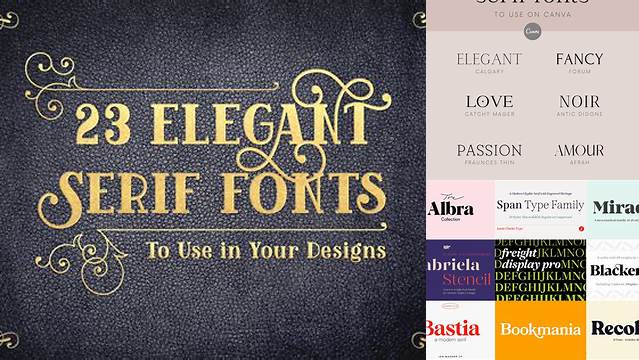
Elegant Serif Fonts: Perfect Logos
Hey guys! Choosing the right font for a logo is super crucial. It's like picking the perfect outfit for your brand – it needs to look good and represent what you're all about. If you're aiming for a classy, timeless vibe, then elegant serif fonts are definitely the way to go. These fonts have those little feet (serifs) that give them a formal and polished look. In this article, we're diving deep into the world of elegant serif fonts and how they can make your logo shine. We'll explore different styles, best practices, and even some examples to get your creative juices flowing. So, let's jump in and find the perfect serif font for your brand!
1. Classic Serif Fonts for Logo Design
When we talk about classic serif fonts, we're talking about the fonts that have stood the test of time. These fonts are like the little black dress of the font world – always in style and perfect for any occasion. For logos, classic serifs can bring a sense of tradition, reliability, and sophistication. Think about brands like Vogue or Times New Roman; these fonts evoke a sense of history and trustworthiness. Choosing a classic serif means you're opting for a font that's legible, versatile, and instantly recognizable. They work particularly well for businesses that want to project an image of authority and expertise. So, if you're looking for a font that screams elegance and stability, diving into the realm of classic serif fonts is a fantastic starting point. They’re not just fonts; they're a statement of enduring quality and style, making them perfect for a logo that needs to make a lasting impression.
2. Modern Serif Fonts for Logo Design
Okay, let's talk about modern serif fonts. These are the cool kids on the serif block, blending the traditional feel of serifs with a contemporary twist. Modern serif fonts often feature high contrast between thick and thin strokes, giving them a sleek and stylish appearance. They're perfect for brands that want to convey sophistication with a bit of an edge. Imagine a high-end fashion brand or a tech company with a classic yet innovative approach – these are the types of businesses that can really rock a modern serif in their logo. These fonts feel fresh and current while still maintaining that timeless elegance that serifs are known for. So, if you're aiming for a logo that's both chic and professional, exploring modern serif fonts is a must. They bring a level of sophistication that’s hard to beat, making your brand look cutting-edge and classy all at once.
3. Luxury Serif Fonts for Branding
If you're aiming for a brand that exudes opulence and sophistication, then luxury serif fonts are your secret weapon. These fonts are designed to make a statement of elegance and exclusivity. Think about high-end fashion houses, luxury hotels, or premium beauty brands – they often use luxury serif fonts to convey their brand's high value and attention to detail. These fonts usually have delicate serifs, beautiful curves, and an overall air of refinement. When you use a luxury serif in your logo, you're instantly signaling to your audience that your brand is synonymous with quality and prestige. It's about creating an impression of something special and worth investing in. So, for brands that want to scream luxury, luxury serif fonts are the go-to choice for creating a logo that truly shines.
4. Elegant Serif Fonts for Fashion Logos
In the world of fashion, your logo needs to be as stylish as your designs, and that's where elegant serif fonts come in. These fonts are perfect for fashion logos because they bring a touch of sophistication and class. Think about brands like Gucci or Prada – their logos use serifs to convey a sense of timeless elegance and high-end appeal. Elegant serifs in a fashion logo can evoke feelings of luxury, exclusivity, and attention to detail. They help to create a brand identity that's both chic and memorable. Whether you're designing for haute couture or a boutique clothing line, choosing an elegant serif font can elevate your logo and make it a true reflection of your brand's style and sophistication. So, if you're in the fashion biz, these fonts are your best friend for creating a logo that's runway-ready.
5. Serif Fonts for Minimalist Logos
Sometimes, less is more, and that's especially true in minimalist logo design. Using serif fonts for minimalist logos can be a game-changer, adding a touch of elegance and sophistication without cluttering the design. Minimalist logos thrive on simplicity, and a well-chosen serif font can bring just the right amount of personality and refinement. The key is to pick a serif that's clean, legible, and has a timeless quality. Think about brands that use simple, understated logos to convey a sense of quality and confidence. By pairing a serif font with a minimalist design, you can create a logo that's both striking and memorable. It's all about making a big impact with just a few carefully chosen elements. So, if you're aiming for a minimalist logo that exudes elegance, consider the power of a well-crafted serif font.
6. Best Serif Fonts for a Professional Logo
For a logo that screams professionalism and trustworthiness, you can't go wrong with the best serif fonts. These fonts have a timeless quality that makes them perfect for businesses wanting to project an image of authority and expertise. Think about law firms, financial institutions, or consulting agencies – they often use serifs to convey reliability and competence. The best serif fonts for a professional logo are those that are legible, versatile, and have a strong presence. They should look good in both large and small sizes, and they should work well across different mediums, from business cards to websites. Choosing the right serif can instantly elevate your brand's image and make it clear that you mean business. So, if you're aiming for a logo that exudes professionalism, investing time in selecting the best serif font is a smart move.
7. Unique Serif Fonts for Logo Design
Want your logo to stand out from the crowd? Then you need to explore unique serif fonts. These are the serifs that have a little something extra, a special quirk or characteristic that sets them apart. Unique serif fonts can add personality and flair to your logo, making it instantly memorable. Think about fonts with unusual letterforms, interesting serifs, or a distinct weight and contrast. These fonts are perfect for brands that want to express their creativity and individuality. However, it's important to balance uniqueness with legibility. You want a font that's eye-catching but still easy to read. Choosing a unique serif can be a bold move, but it can also pay off big time by creating a logo that truly represents your brand's distinct identity. So, if you're looking for a logo that's anything but ordinary, dive into the world of unique serif fonts and see what gems you can find.
8. Serif Fonts with High Contrast for Logos
Serif fonts with high contrast are all about drama and elegance. These fonts have a significant difference in thickness between the strokes, creating a striking visual effect. High contrast serifs are perfect for logos that need to make a bold statement and convey a sense of sophistication. Think about fashion brands, luxury goods, or any business that wants to project a high-end image. The contrast in these fonts draws the eye and adds a touch of modernity while still maintaining the classic feel of a serif. However, it's important to use these fonts judiciously. Too much contrast can make a font difficult to read in small sizes, so it's essential to ensure legibility. But when used well, serif fonts with high contrast can elevate your logo and give it a luxurious and stylish edge. So, if you're looking for a font that commands attention, these are definitely worth considering.
9. Vintage Serif Fonts for Logo Design
If you're aiming for a logo with a touch of nostalgia and old-world charm, then vintage serif fonts are your go-to choice. These fonts evoke a sense of history and craftsmanship, perfect for brands that want to convey a sense of tradition and authenticity. Vintage serif fonts often have unique letterforms and intricate details that set them apart from more modern styles. Think about brands in the сфере of artisanal goods, classic clothing, or businesses with a heritage story to tell. Using a vintage serif in your logo can instantly transport your audience to another era, creating a strong emotional connection. Just be sure to balance the vintage feel with readability. You want a font that's both stylish and easy to read. So, if you're looking to add a touch of timeless elegance to your logo, exploring vintage serif fonts is a fantastic idea.
10. Elegant Serif Fonts for Technology Logos
While it might seem counterintuitive, elegant serif fonts can actually work wonders for technology logos. In a world dominated by sleek, sans-serif fonts, using a serif can help your tech brand stand out and convey a sense of reliability and sophistication. Think about tech companies that want to project an image of innovation combined with trustworthiness – these are the brands that can really benefit from an elegant serif. The key is to choose a serif that has a modern edge, one that doesn't feel too traditional or stuffy. A well-chosen serif can add a touch of class and distinction to your tech logo, making it memorable and impactful. It's about showing that your brand is not only innovative but also grounded and dependable. So, if you're looking to break the mold in the tech world, consider the power of an elegant serif font.
11. Serif Fonts for Law Firm Logos
When it comes to law firms, trust and professionalism are paramount, and your logo plays a crucial role in conveying those qualities. That's why serif fonts are a classic choice for law firm logos. These fonts have a long-standing association with tradition, authority, and reliability. Serif fonts can communicate stability and competence, essential traits for a legal practice. Think about prestigious law firms that use serifs to establish their credibility and expertise. The key is to choose a serif that's legible, formal, and commands respect. A well-chosen serif font can instantly elevate your law firm's logo, making it clear that you're a serious and trustworthy firm. It's about creating an image of strength and integrity, which is exactly what clients look for in a legal partner.
12. Serif Fonts for Financial Institution Logos
In the world of finance, trust and stability are everything, and your logo needs to reflect those values. Serif fonts are a popular choice for financial institution logos because they convey a sense of reliability, tradition, and professionalism. Serif fonts have a classic and timeless quality that instills confidence in clients and investors. Think about major banks and financial companies that use serifs to communicate their long-standing history and expertise. The key is to choose a serif that's legible, authoritative, and projects an image of financial strength. A well-designed serif logo can help a financial institution establish credibility and build trust with its audience. It's about creating a visual representation of stability and security, which is crucial in the financial industry.
13. Serif Fonts for Publishing Logos
The publishing industry is all about words, so your logo needs to reflect a love for typography and readability. Serif fonts are a natural fit for publishing logos because they have a classic and literary feel. Serif fonts are traditionally used in books and publications, making them instantly recognizable and associated with the world of reading and writing. Think about major publishing houses and literary magazines that use serifs to convey their connection to the written word. The key is to choose a serif that's legible, elegant, and has a timeless quality. A well-designed serif logo can help a publishing company establish its identity and communicate its passion for literature. It's about creating a visual representation of the written word, which is at the heart of the publishing industry.
14. Elegant Serif Fonts for Restaurant Logos
For restaurants aiming to convey elegance and a high-end dining experience, elegant serif fonts can be a fantastic choice for their logos. These fonts bring a touch of class and sophistication, setting the tone for a refined atmosphere. Elegant serif fonts can suggest quality and attention to detail, crucial elements for attracting discerning diners. Think about upscale restaurants that use serifs to communicate their commitment to excellence. The key is to choose a serif that's legible, stylish, and reflects the restaurant's culinary style. A well-designed serif logo can elevate a restaurant's brand, making it memorable and inviting. It's about creating a visual representation of the dining experience, from the ambiance to the cuisine.
15. Serif Fonts for Hotel Logos
When it comes to hotel logos, conveying a sense of luxury, comfort, and trustworthiness is essential, and serif fonts can help achieve that. These fonts have a classic and elegant quality that aligns well with the hospitality industry. Serif fonts can evoke feelings of relaxation, sophistication, and attention to detail, all important factors for attracting guests. Think about high-end hotels that use serifs to communicate their commitment to providing a superior experience. The key is to choose a serif that's legible, inviting, and reflects the hotel's overall style and ambiance. A well-designed serif logo can enhance a hotel's brand, making it memorable and appealing to potential guests. It's about creating a visual representation of the hotel's unique personality and offerings.
16. How to Choose the Right Serif Font for Your Logo
Choosing the right font for your logo can feel like a big decision, but it doesn't have to be overwhelming. When it comes to choosing the right serif font, there are a few key things to keep in mind. First, consider your brand's personality. Are you aiming for classic and traditional, or modern and edgy? The font should reflect your brand's identity. Next, think about legibility. A beautiful font is useless if people can't read it. Make sure the font is clear and easy to read in various sizes and applications. Finally, consider the overall aesthetic of your logo. The serif font should complement the other elements, such as colors and images, to create a cohesive and impactful design. By keeping these factors in mind, you can confidently choose the right serif font for your logo and create a lasting impression.
17. Pairing Serif Fonts with Other Fonts in a Logo
One of the keys to a well-designed logo is harmonious font pairing. When it comes to pairing serif fonts with other fonts, you have a lot of creative freedom, but it's important to do it thoughtfully. A common approach is to pair a serif with a sans-serif font. This creates a nice contrast and visual interest. For example, you might use a serif for your brand name and a sans-serif for your tagline. The goal is to create a balanced and legible design. Avoid pairing fonts that are too similar, as this can look unintentional. Instead, look for fonts that complement each other while still having their own distinct personality. Experiment with different combinations until you find a pairing that feels just right for your brand. Pairing serif fonts effectively can elevate your logo and make it truly stand out.
18. The Psychology of Serif Fonts in Logo Design
Fonts aren't just about aesthetics; they also carry psychological associations. Understanding the psychology of serif fonts can help you make informed decisions about your logo design. Serif fonts are often associated with tradition, authority, and trustworthiness. They have a classic and established feel, which can be beneficial for brands wanting to convey stability and reliability. Serif fonts can also communicate elegance and sophistication, making them a great choice for luxury brands or businesses aiming for a refined image. However, it's important to consider your target audience and the overall message you want to send. While serifs can be powerful, they might not be the best fit for every brand. By understanding the psychological impact of serif fonts, you can create a logo that resonates with your audience and effectively communicates your brand's values and personality.
19. Examples of Logos Using Elegant Serif Fonts
Looking at real-world examples can be incredibly helpful when choosing a font for your own logo. There are countless examples of logos using elegant serif fonts across various industries. Think about brands like Vogue, Tiffany & Co., and The New York Times – they all use serifs to convey a sense of sophistication and authority. These logos demonstrate the timeless appeal of serif fonts and their ability to create a strong and lasting impression. By studying these examples, you can gain inspiration and see how different serifs can be used to achieve various effects. Pay attention to the font's weight, spacing, and overall style, and consider how it fits with the brand's identity. Analyzing successful logos is a great way to inform your own design process and choose an elegant serif font that perfectly represents your brand.
20. The Legibility of Serif Fonts in Logos
Legibility is a crucial factor to consider when choosing a font for your logo. While serif fonts are often praised for their elegance and traditional appeal, it's important to ensure that they are also easy to read. The legibility of serif fonts can vary depending on the specific font, its size, and the context in which it's used. Some serifs are highly legible in both large and small sizes, while others may become difficult to read when reduced. When designing your logo, it's essential to test the serif font in various applications, such as business cards, websites, and social media profiles. Make sure the font remains clear and readable, even at smaller sizes. If legibility is a concern, you might consider choosing a serif with a simpler design or pairing it with a sans-serif font for supporting text. Prioritizing legibility will ensure that your logo is effective and communicates your brand's message clearly.
21. The Versatility of Serif Fonts for Different Industries
One of the great things about serif fonts is their versatility. They can work well across a wide range of industries, from fashion and luxury to law and finance. The versatility of serif fonts stems from their classic and timeless quality, which can convey a sense of authority, elegance, and reliability. However, it's important to choose a serif that aligns with your specific industry and brand personality. For example, a delicate and refined serif might be perfect for a fashion brand, while a bolder and more authoritative serif might be better suited for a law firm. By understanding the nuances of different serif fonts, you can leverage their versatility to create a logo that effectively represents your brand in any industry.
22. The Future of Serif Fonts in Logo Design
In a world of ever-changing design trends, it's natural to wonder about the future of serif fonts. Despite the rise of modern and minimalist designs, the future of serif fonts in logo design looks bright. Serifs have a timeless quality that ensures they will always have a place in the design world. While trends may come and go, the elegance and sophistication of serif fonts will continue to appeal to brands seeking a classic and trustworthy image. We may see serifs evolve and adapt to new design styles, but their fundamental characteristics will likely remain. As long as brands value tradition, authority, and elegance, serif fonts will continue to be a valuable tool in logo design. So, if you're considering a serif for your logo, you can be confident that it's a choice that will stand the test of time.
23. Free vs. Premium Serif Fonts for Logos
When it comes to choosing a font for your logo, you'll encounter both free and premium options. Deciding between free vs. premium serif fonts can be a tricky choice, as both have their pros and cons. Free serif fonts can be a budget-friendly option, especially for startups or small businesses. However, they may have limitations in terms of quality, licensing, and the range of styles available. Premium serif fonts, on the other hand, often offer higher quality designs, broader character sets, and more flexible licensing options. They may also come with better support and updates. The best choice depends on your specific needs and budget. If you're looking for a professional and unique logo, investing in a premium serif font may be worth the cost. However, if you have a limited budget, there are also some excellent free serif fonts available. Just be sure to check the licensing terms carefully to ensure they meet your needs.
24. The Importance of Kerning and Spacing with Serif Fonts
Kerning and spacing are crucial elements of typography that can significantly impact the legibility and visual appeal of your logo. This is particularly important when working with serif fonts, as their intricate details can make proper kerning and spacing even more critical. Kerning refers to the adjustment of space between individual letters, while spacing refers to the overall space between words and lines. Incorrect kerning or spacing can make a serif font look awkward and difficult to read. Letters may appear too close together or too far apart, disrupting the flow of the text. Paying attention to the importance of kerning and spacing ensures that your logo is visually balanced, legible, and professional. It's a small detail that can make a big difference in the overall impact of your brand identity.
25. Using Serif Fonts to Convey Trust and Reliability
In the world of branding, conveying trust and reliability is paramount, and the fonts you choose play a crucial role in achieving that. Using serif fonts to convey trust and reliability is a time-tested strategy. Serif fonts have a classic and established feel that evokes a sense of tradition, authority, and stability. They are often associated with institutions and organizations that have a long history and a reputation for dependability. When you use a serif font in your logo, you're subconsciously signaling to your audience that your brand is trustworthy and reliable. This can be particularly beneficial for businesses in sectors such as finance, law, and healthcare, where trust is essential. However, any brand can benefit from the positive associations that serif fonts bring. By carefully selecting a serif that aligns with your brand's personality and values, you can create a logo that instills confidence in your audience.
26. Making Serif Fonts Work in a Modern Logo Design
While serif fonts have a classic and traditional feel, they can also be incredibly effective in modern logo designs. The key is to use them strategically and creatively. Making serif fonts work in a modern logo design often involves pairing them with contemporary elements, such as clean lines, bold colors, and minimalist layouts. You might choose a serif font with a modern twist, such as one with high contrast or unusual letterforms. Another approach is to use a serif font sparingly, such as for the brand name, while using a sans-serif for other text elements. The goal is to create a balance between tradition and modernity, resulting in a logo that feels both timeless and current. By experimenting with different styles and techniques, you can harness the elegance and authority of serif fonts while still maintaining a fresh and contemporary aesthetic.
27. The Impact of Font Weight on Serif Logo Design
Font weight refers to the thickness of the font's strokes, and it can have a significant impact on the overall look and feel of your logo. When it comes to serif logo design, the font weight you choose can influence everything from legibility to brand perception. A heavy or bold serif can convey strength, authority, and confidence, while a light or thin serif can evoke elegance, sophistication, and delicacy. The ideal font weight depends on your brand's personality and the message you want to communicate. Consider the context in which your logo will be used. A heavier weight may be more effective for a logo that needs to stand out in a crowded environment, while a lighter weight may be more appropriate for a subtle and refined logo. Experiment with different weights to see how they affect the overall impact of your serif logo. It's a crucial detail that can make a big difference in the final design.
28. Combining Elegant Serif Fonts with Geometric Shapes in Logos
Geometric shapes are a powerful design element that can add structure, balance, and visual interest to your logo. Combining elegant serif fonts with geometric shapes can create a sophisticated and memorable logo design. The contrast between the organic curves of the serif and the clean lines of the geometric shapes can be visually striking. This combination can work well for a variety of brands, from those seeking a classic and refined look to those aiming for a more modern and minimalist aesthetic. The key is to use the geometric shapes purposefully and ensure they complement the serif font. Consider the message you want to convey. A circle might represent unity and harmony, while a square might evoke stability and strength. By thoughtfully combining serif fonts and geometric shapes, you can create a logo that is both visually appealing and meaningful.
29. Testing Your Serif Font Logo Across Different Platforms
Once you've designed your logo, it's crucial to ensure that it looks great across all platforms and devices. Testing your serif font logo across different platforms is an essential step in the design process. A serif font that looks fantastic on your computer screen might not translate well to a mobile device or a printed business card. Factors such as screen resolution, font rendering, and color accuracy can affect the appearance of your logo. Testing your logo in various sizes and formats will help you identify any potential issues, such as legibility problems or distortion. Make sure to check how your serif font logo looks on websites, social media profiles, printed materials, and any other relevant platforms. This will ensure that your brand identity remains consistent and impactful, no matter where it's seen.
30. Common Mistakes to Avoid When Using Serif Fonts in Logos
While serif fonts can be a fantastic choice for logos, there are also some common pitfalls to watch out for. Knowing common mistakes to avoid when using serif fonts in logos can help you create a design that is both effective and visually appealing. One common mistake is choosing a serif font that is too ornate or difficult to read, especially in smaller sizes. Legibility is crucial, so prioritize fonts that are clear and easy to recognize. Another mistake is using too many different fonts in your logo, which can create a cluttered and unprofessional look. Stick to a maximum of two fonts, and ensure they complement each other. Also, be mindful of kerning and spacing, as incorrect adjustments can make your serif font logo look awkward. By avoiding these common mistakes, you can harness the elegance and authority of serif fonts and create a logo that truly represents your brand.